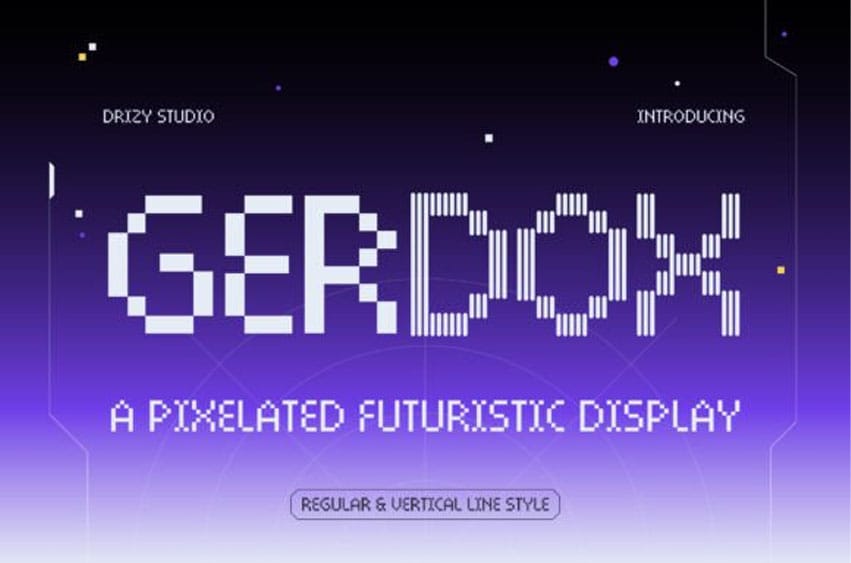
Gerdox Font Pixelated Futuristic Display Font is a modular typeface that falls under the Futuristic Modular Line. Characterized by its pixelated, grid-based structure, Gerdox embodies a digital, sci-fi aesthetic reminiscent of retro computer interfaces and modern cyberpunk visuals.
Each character is constructed with sharp angles and blocky geometry, giving it a robotic and mechanical appearance. Its modular nature also makes it ideal for creative customization and dynamic typographic compositions.